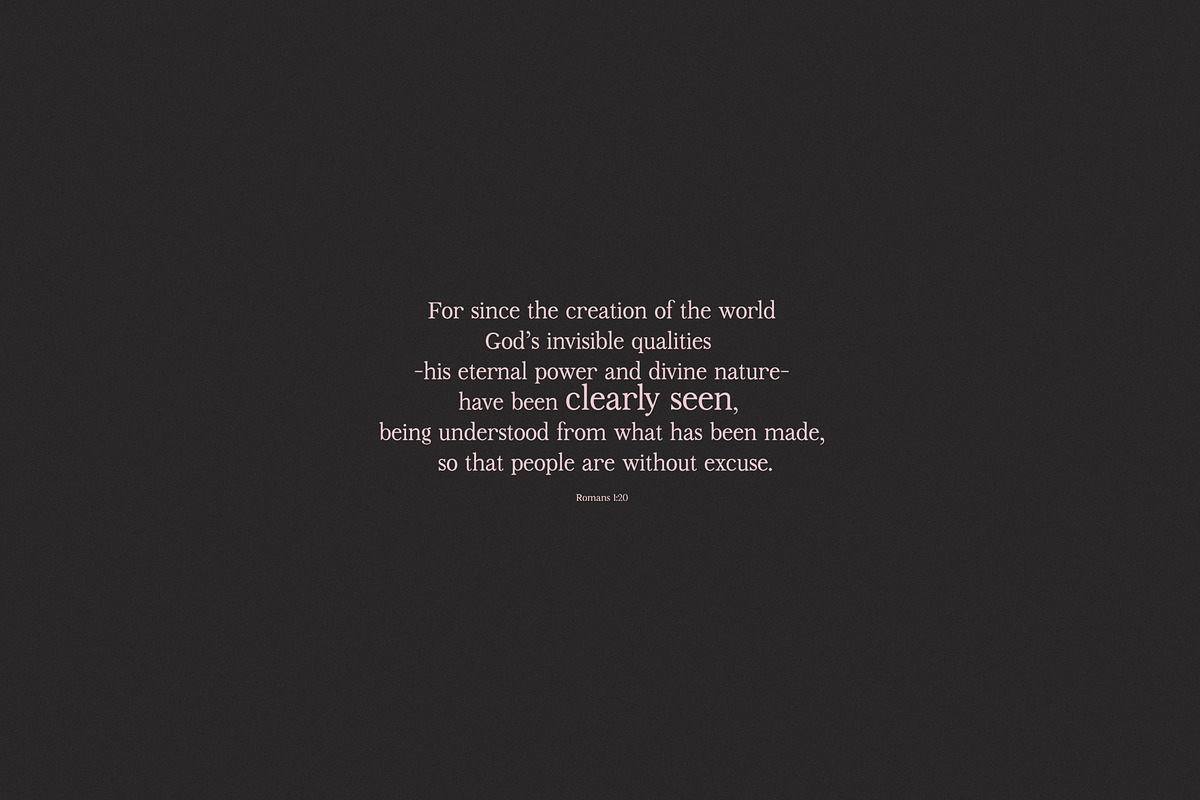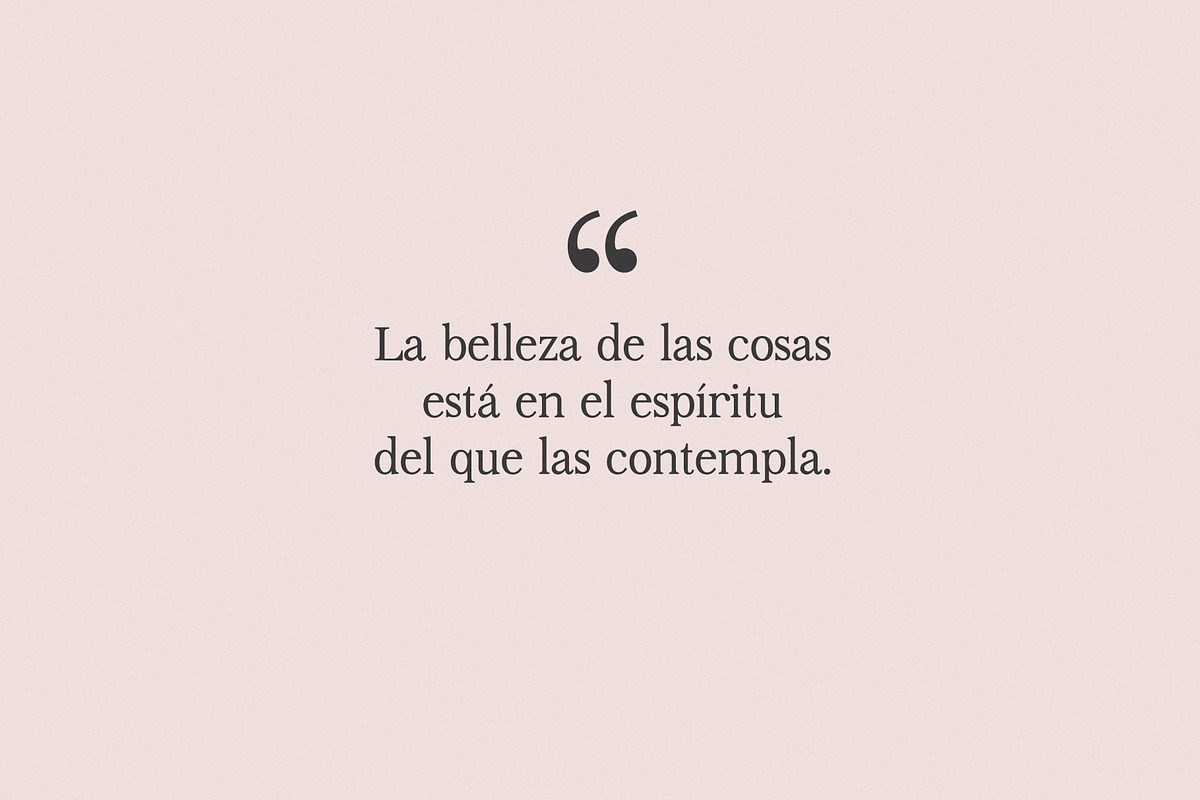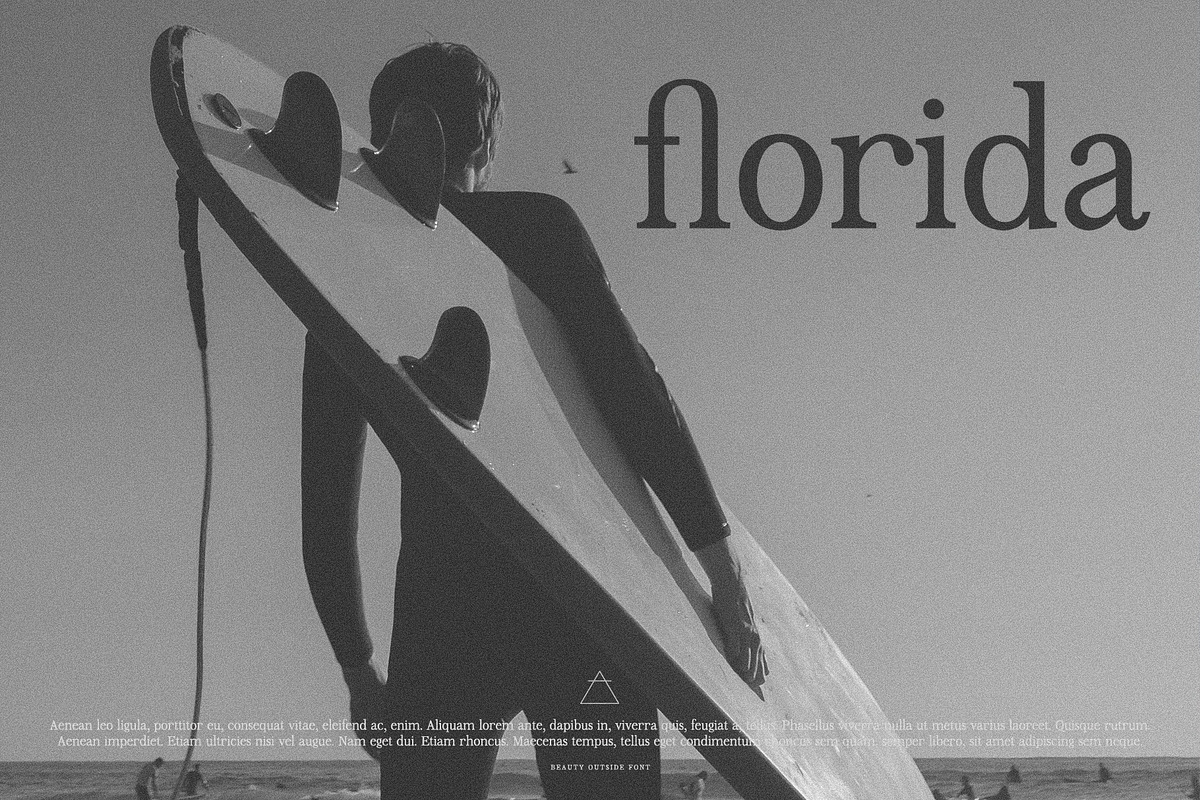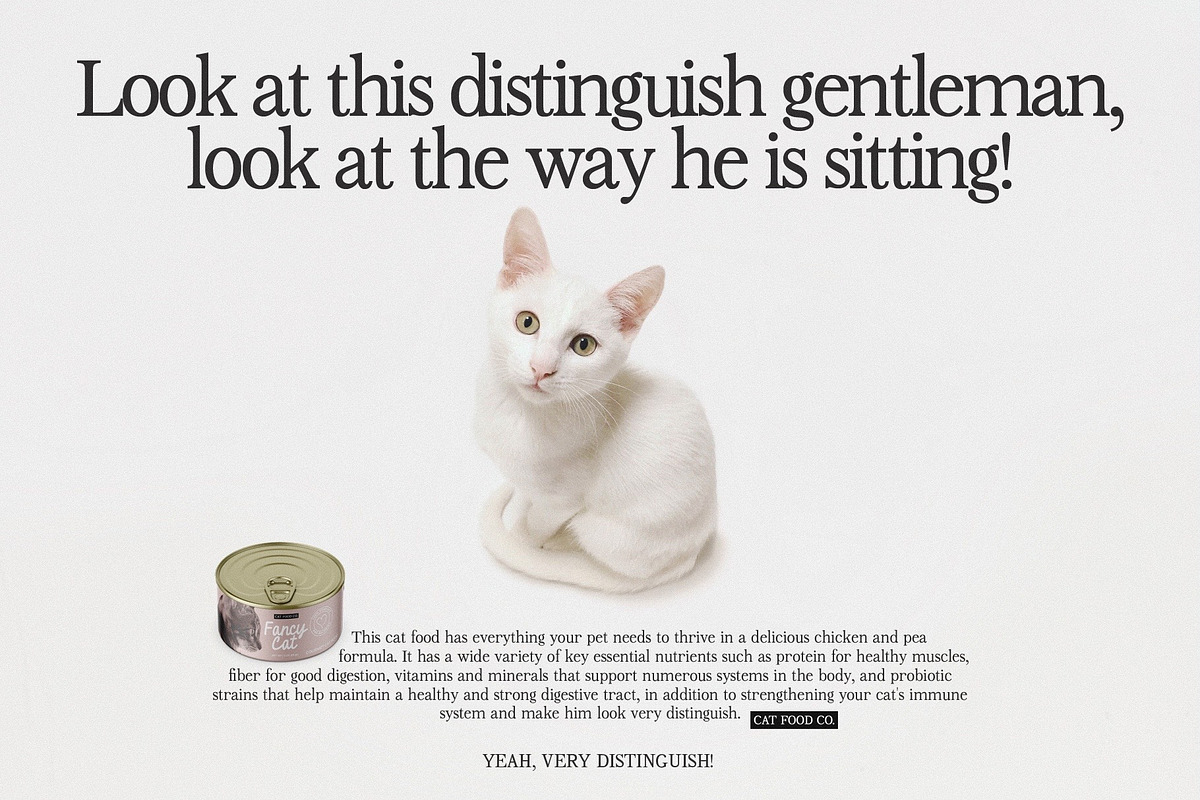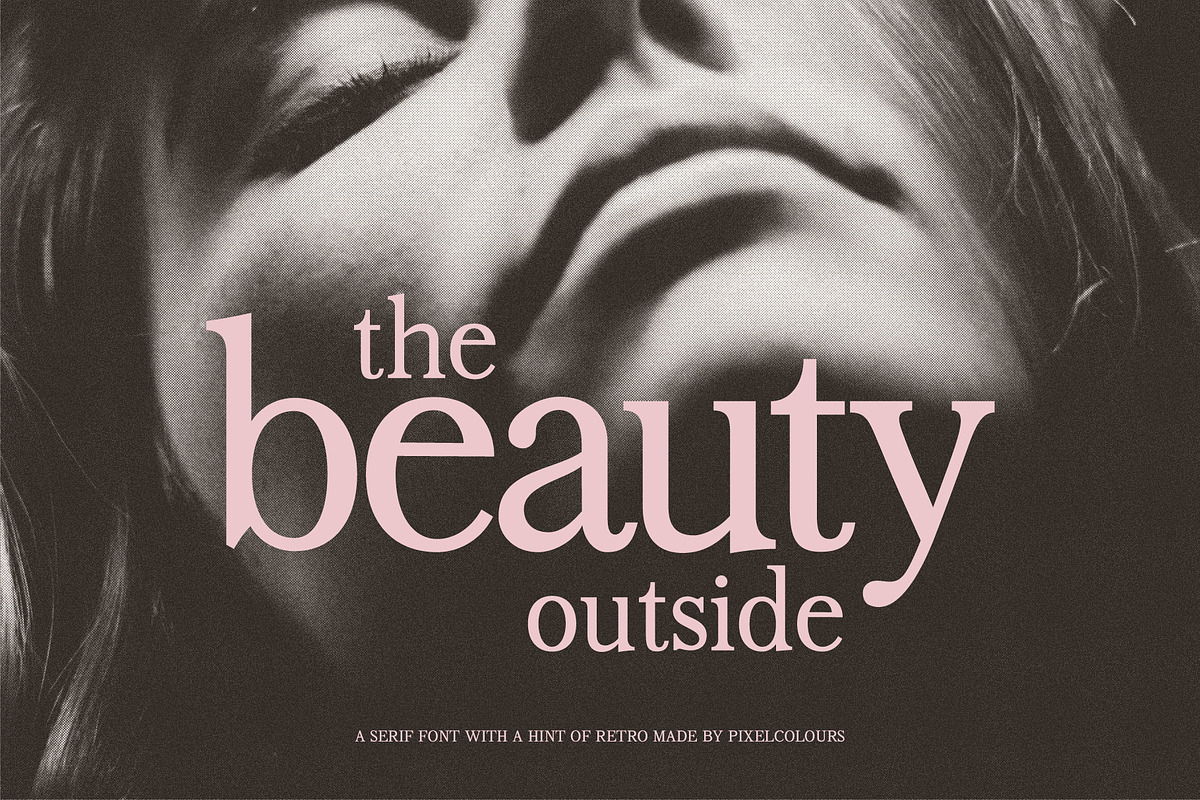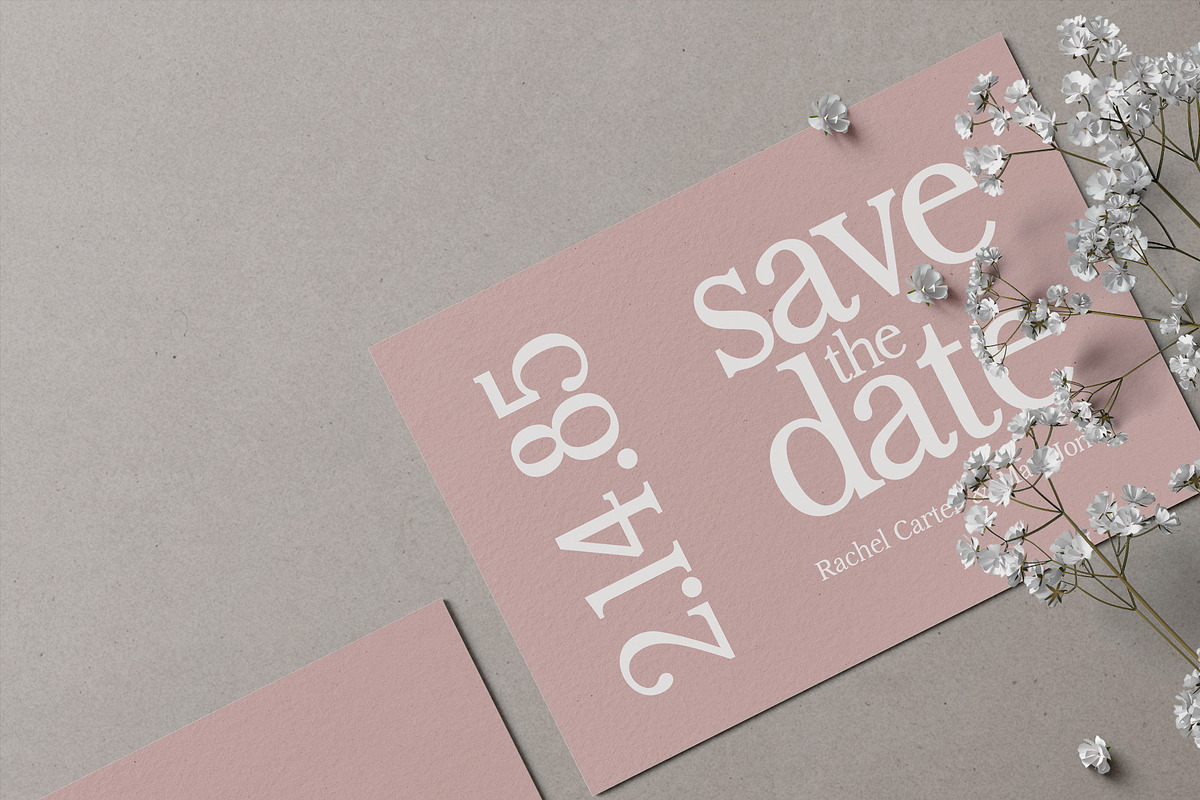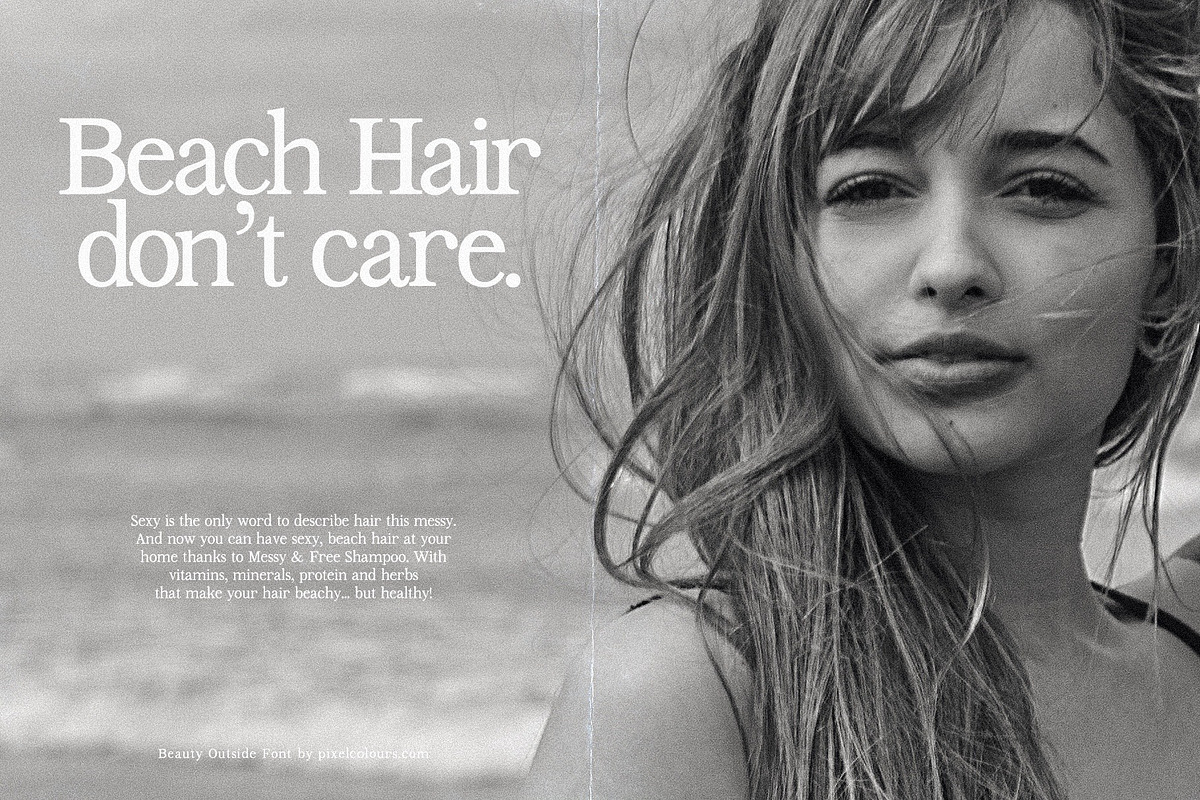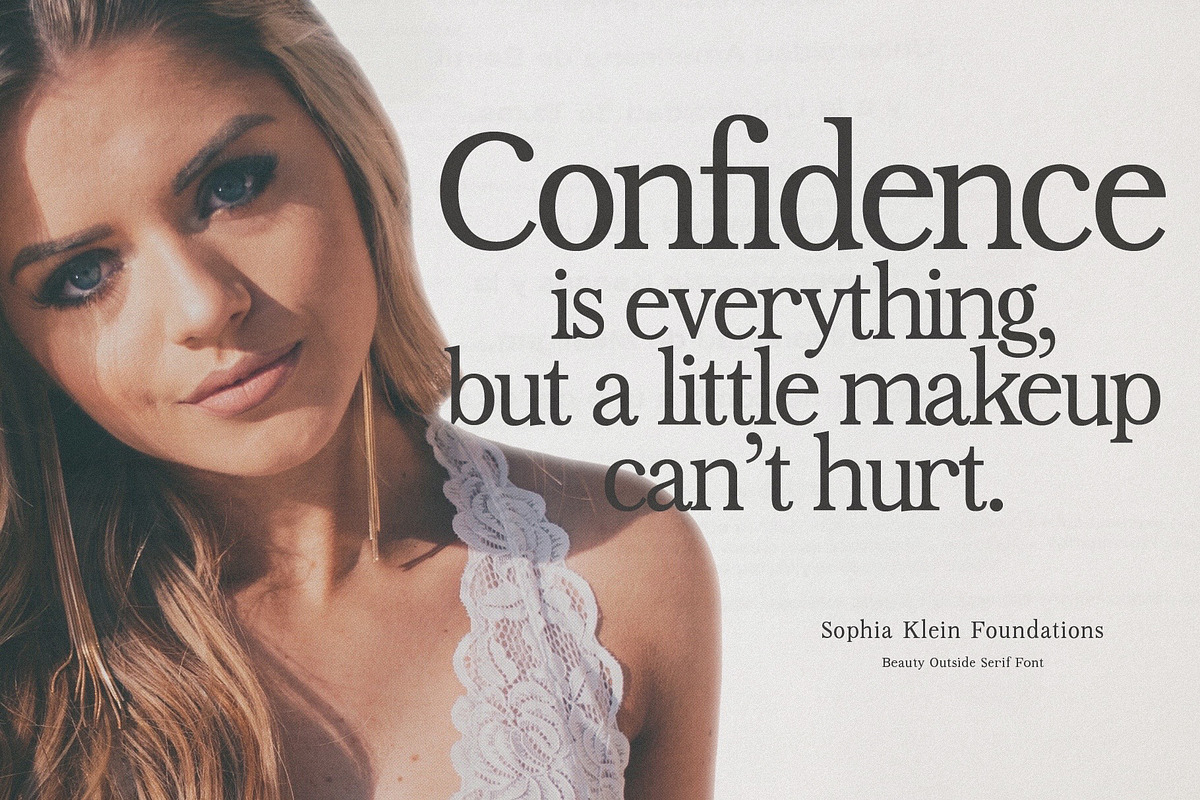
Beauty Outside Serif Font
Beauty Outside is a serif font with a hint of retro. Includes a display font for larger words and a font for texts, for reading. Use them alone or pair them together to create professional compositions and designs. This
Beauty Outside Text: a serif font with loose letter spacing suited for reading great for body text.
Beauty Outside Display: a serif display with with tight letter spacing suited for larger type and headlines.
- Includes a display font for larger words and a font for texts, for reading.
- This Includes: Beauty Outside Text: a serif font with loose letter spacing suited for reading great for body text.
- Includes a display font for larger words and a font for texts, for reading.
- This Includes: Beauty Outside Text: a serif font with loose letter spacing suited for reading great for body text.
Why Beauty Outside Serif Font is worth a look